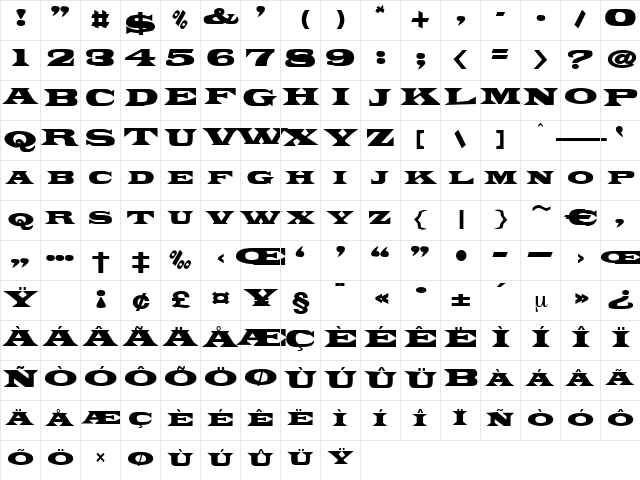
Zyklop Regular
Design Context for Zyklop
Zyklop is a composed and adaptable typeface that performs quietly and consistently across a wide range of design contexts.